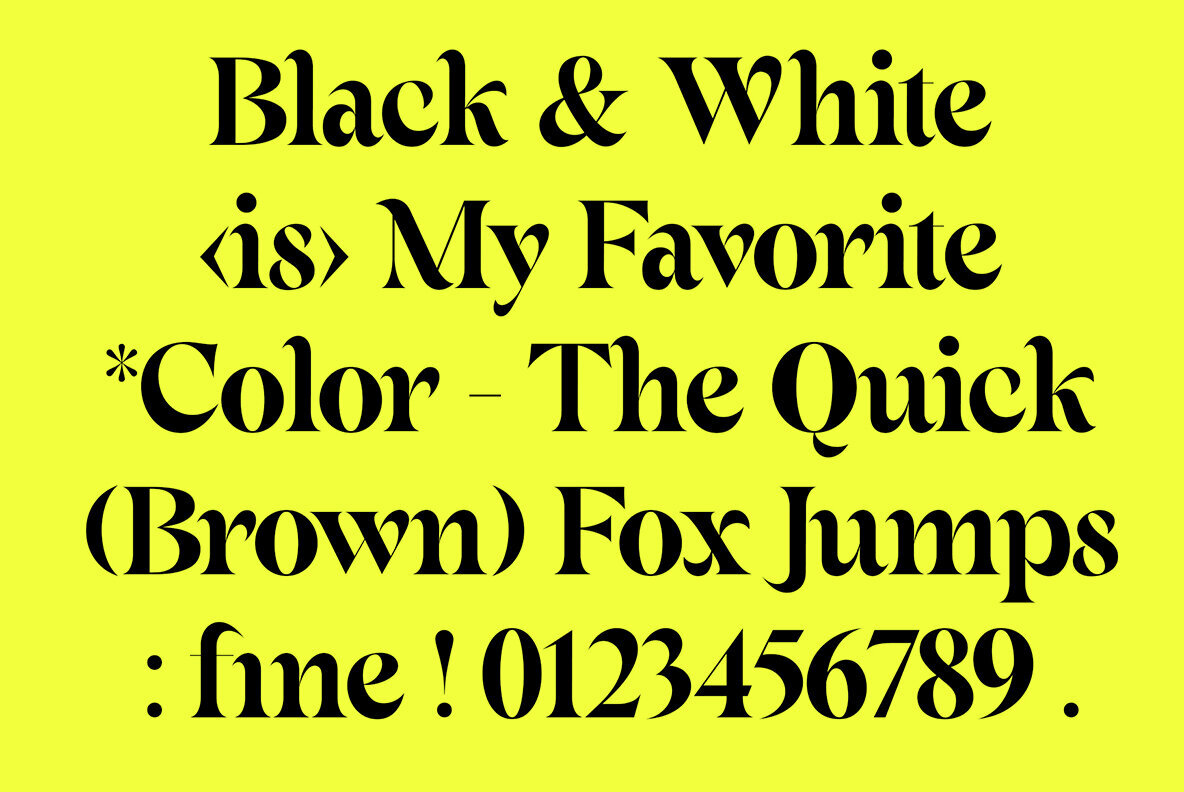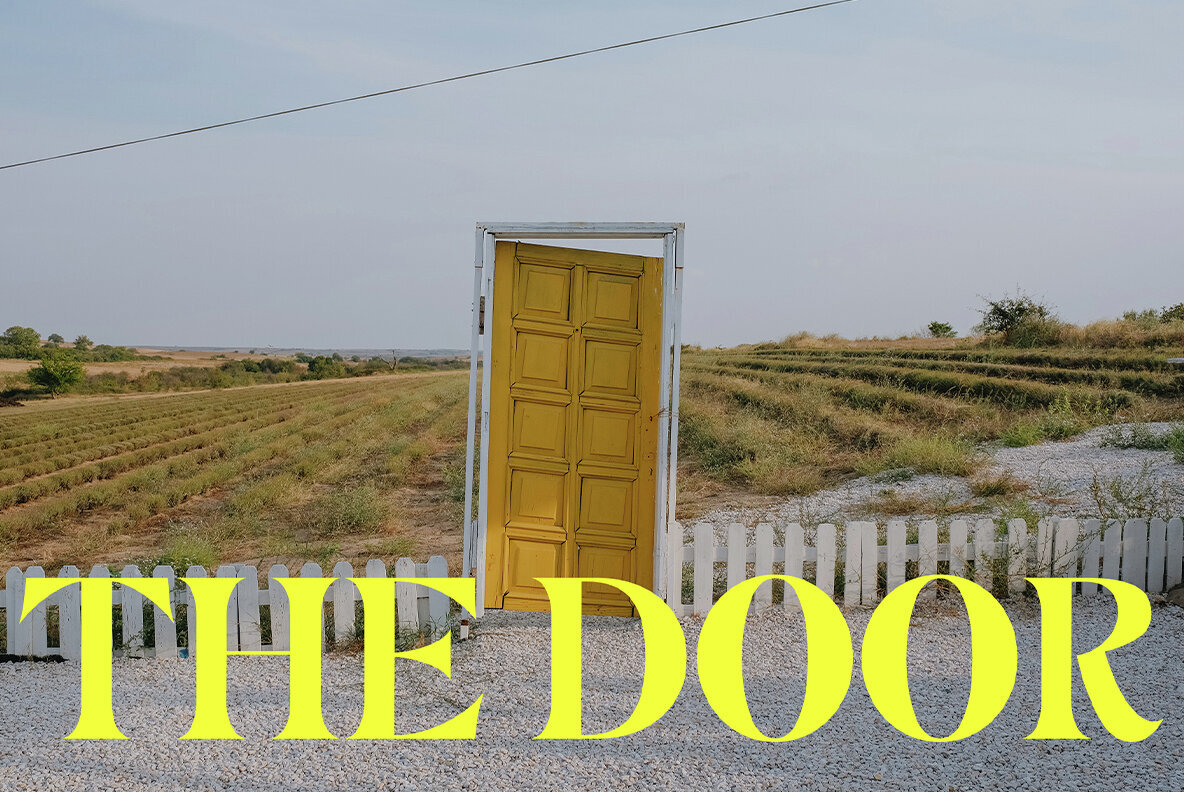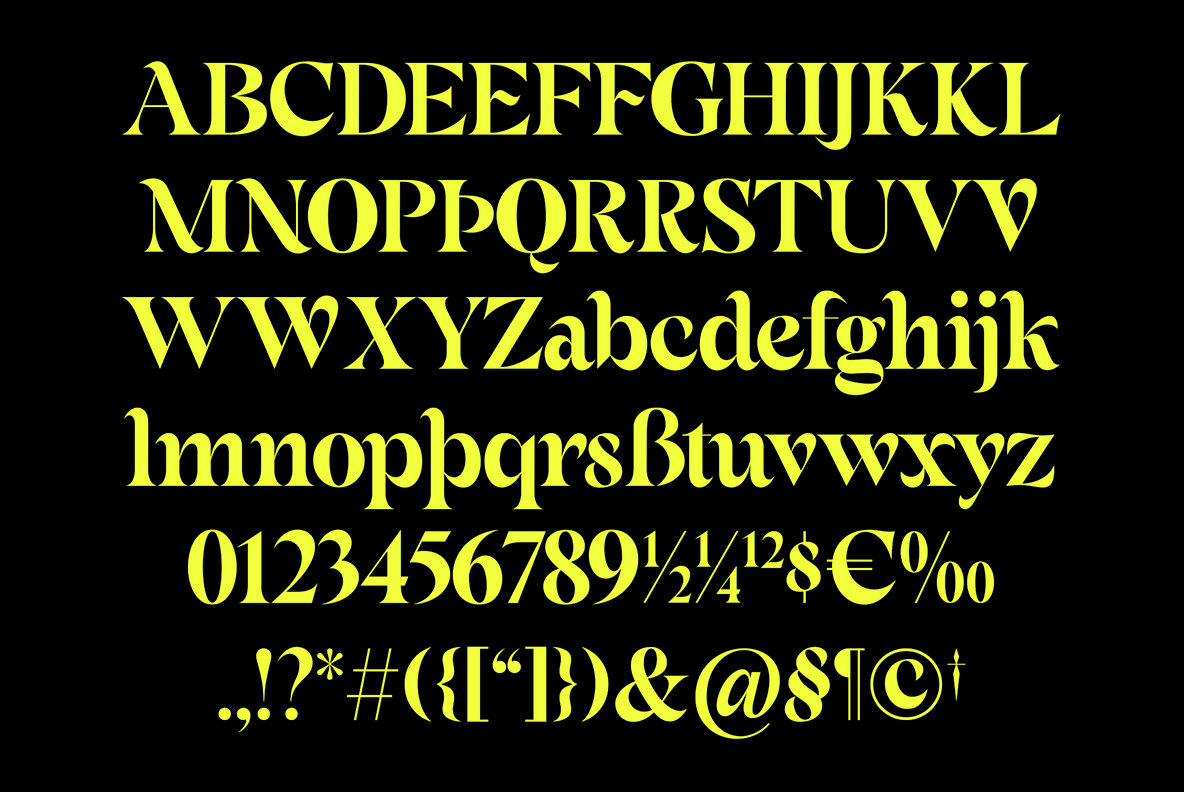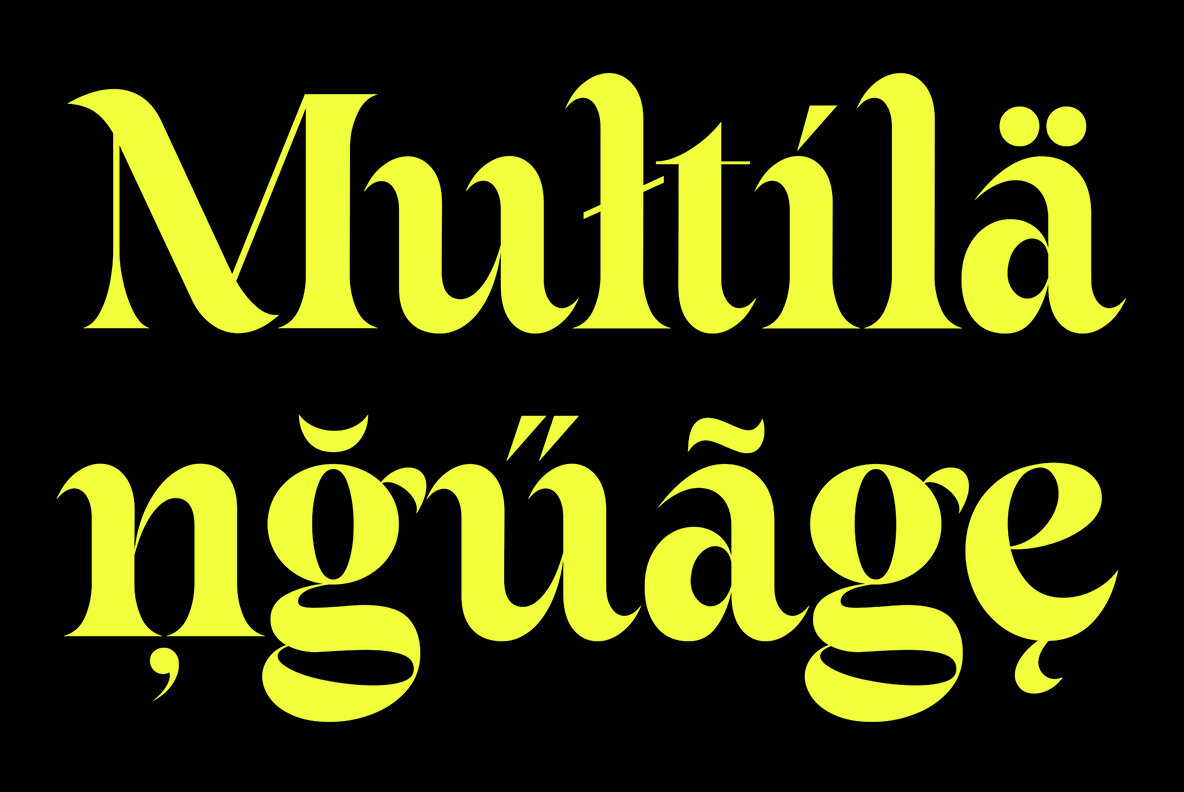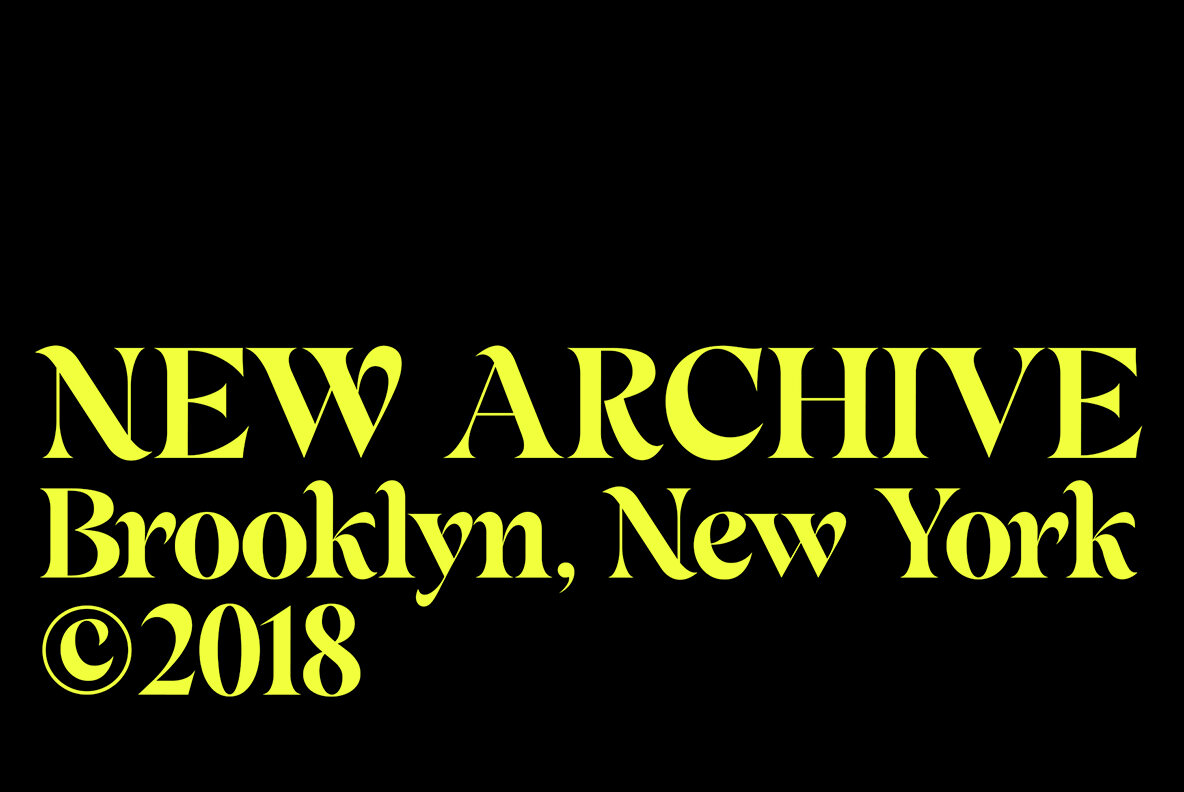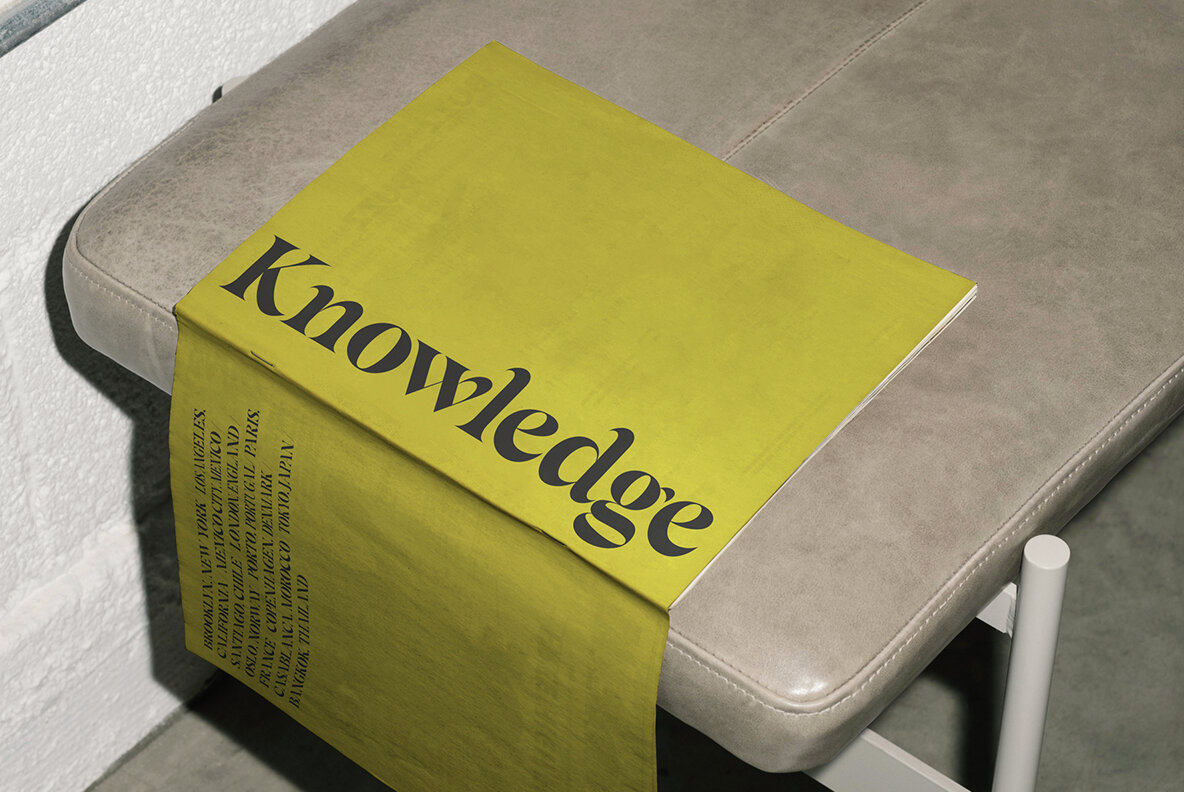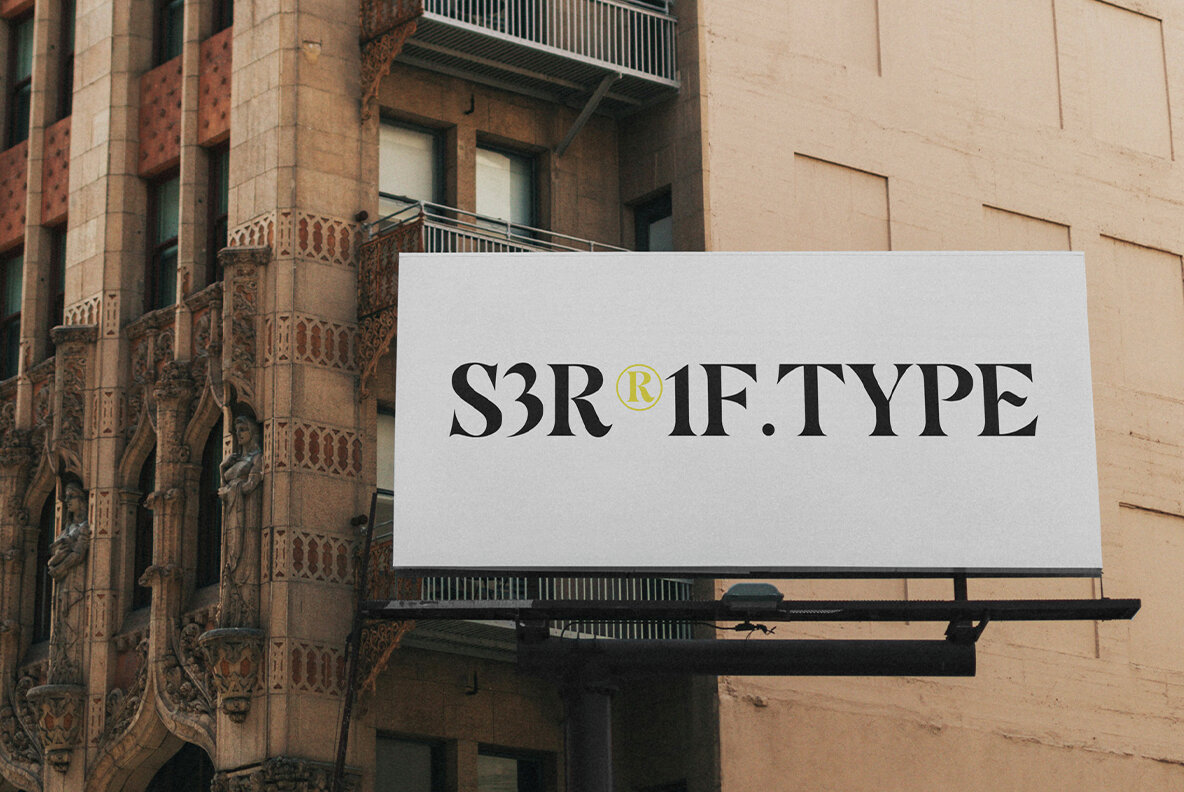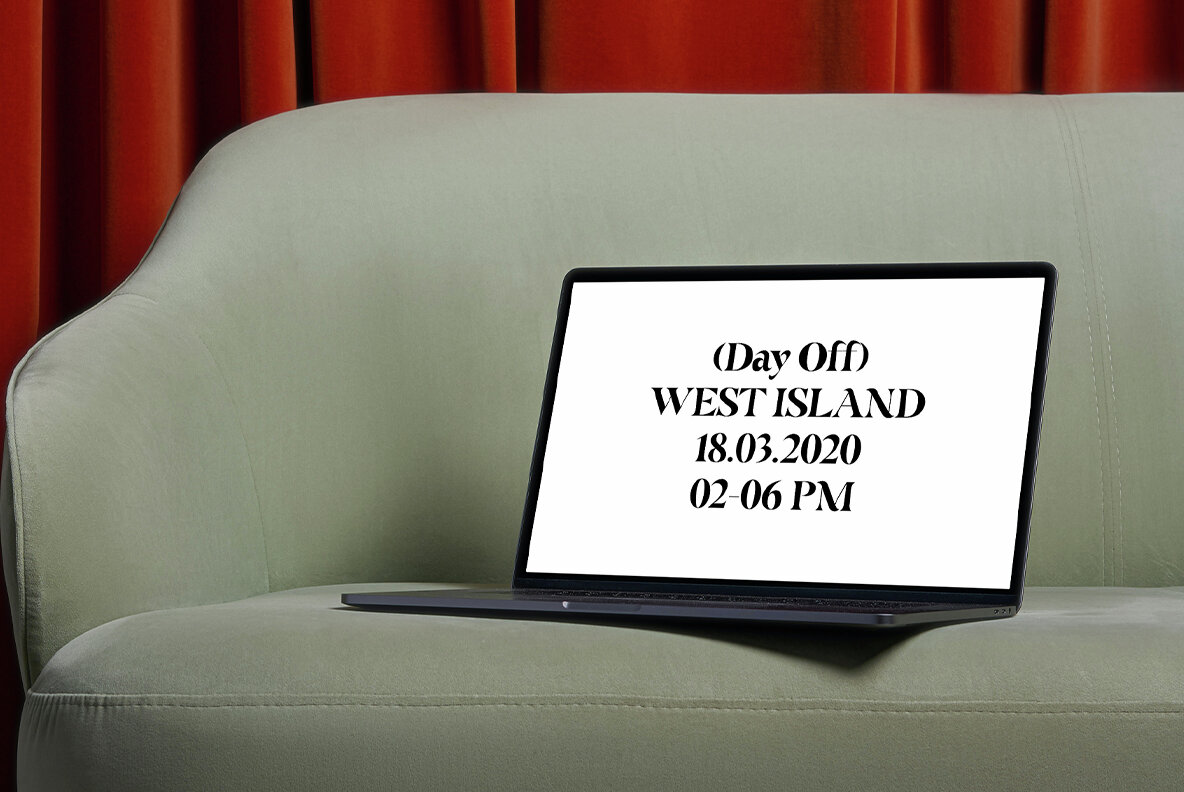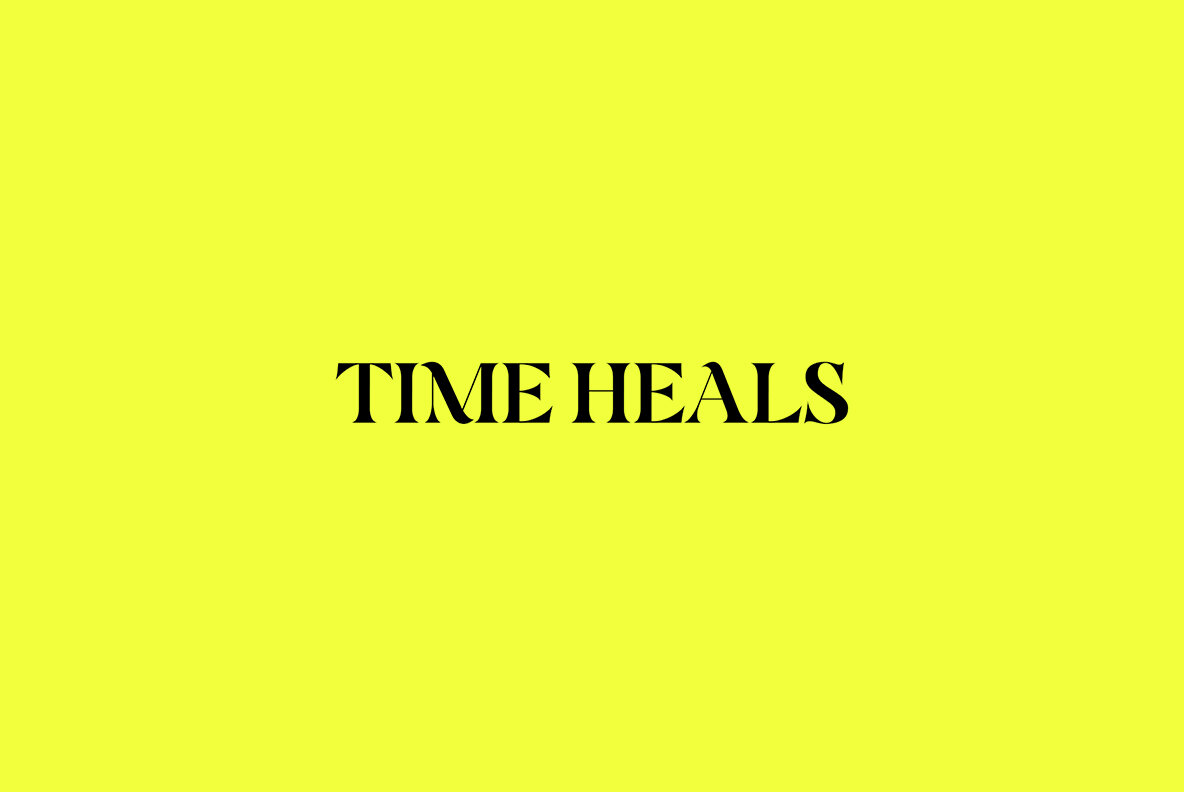
ED Fortrose Font
ED Fortrose Regular
Immerse yourself in the world of classic-style typography with the ED Fortrose font, expertly crafted by acclaimed designer Emyself Design. The product resonates with a bold look intertwined with sharp thin lines, creating an impeccable balance of elegance and unmistakable assertiveness. The Fortrose font provides graphic designers and marketing firms with the flexibility and versatility that they require for an array of creative projects. What further elevates ED Fortrose in the sight of graphic design connoisseurs is its distinctive features—ligatures, alternative characters, and a multilingual environment. These fine details make this font an invaluable asset in a designer's toolkit, enabling them to present their concepts with a unique and engaging edge. Features:Delve Into Typography Excellence with ED Fortrose Serif Font